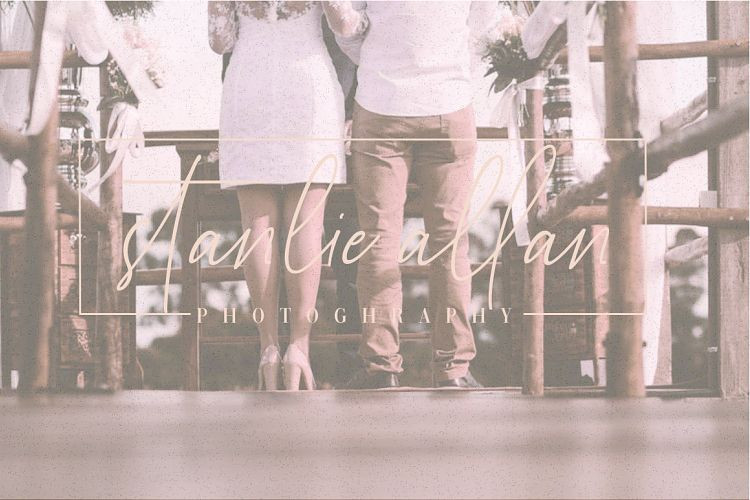
Cellestial Handwritten Font
Cellestial Handwritten Demo Font
A new signature style font. Presenting Cellestial Font. For those of you who are needing a touch of elegance and modernity for your designs, this font was created for you! Cellestial – Handwritten Font is a new modern & stylish handwritten font. It’s Perfect for logo,branding, invitation, tittle, wedding designs, social media posts, advertisements, product packaging, product designs, label, photography, watermark, special event,magazine,web design,etc.